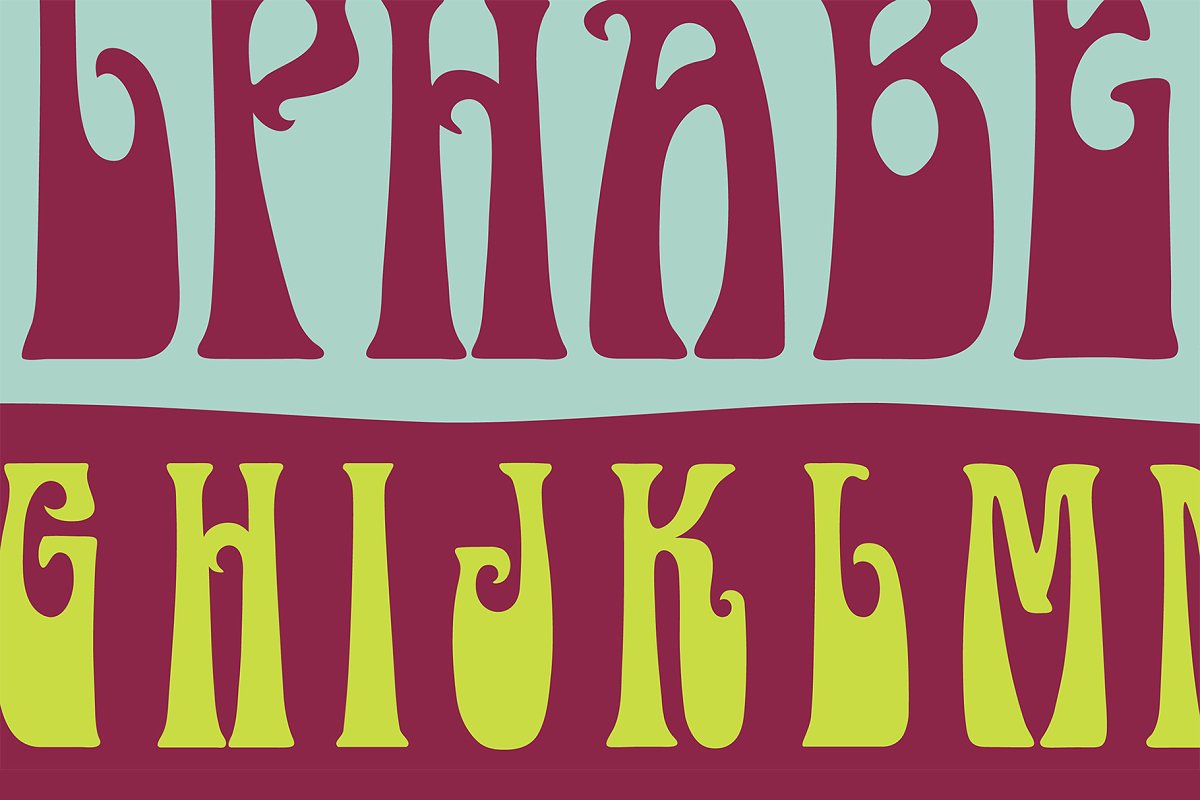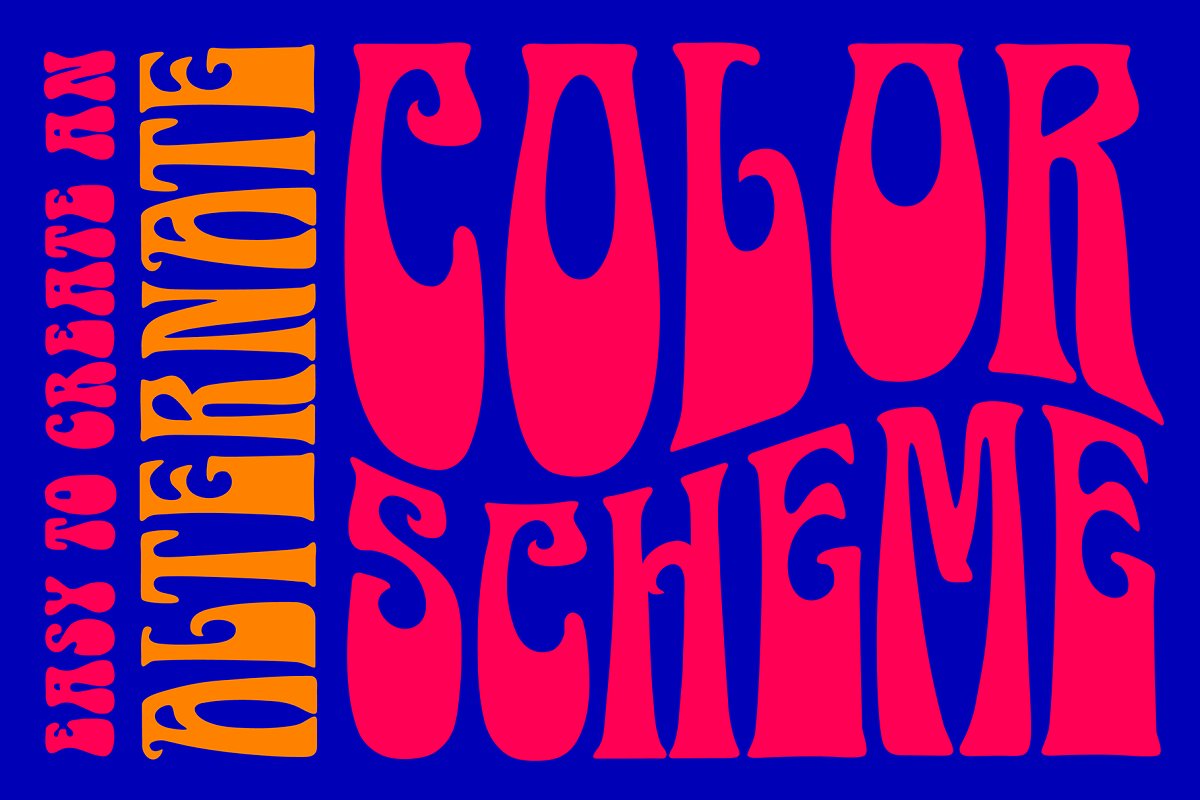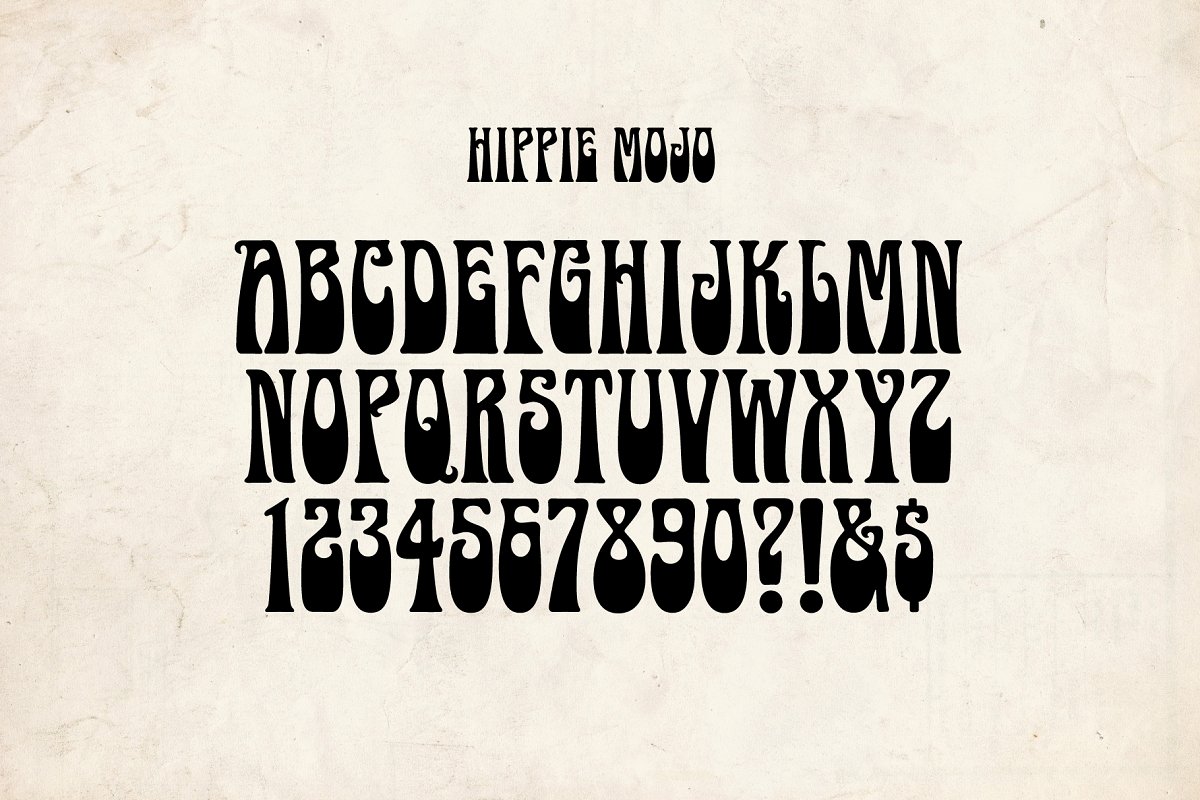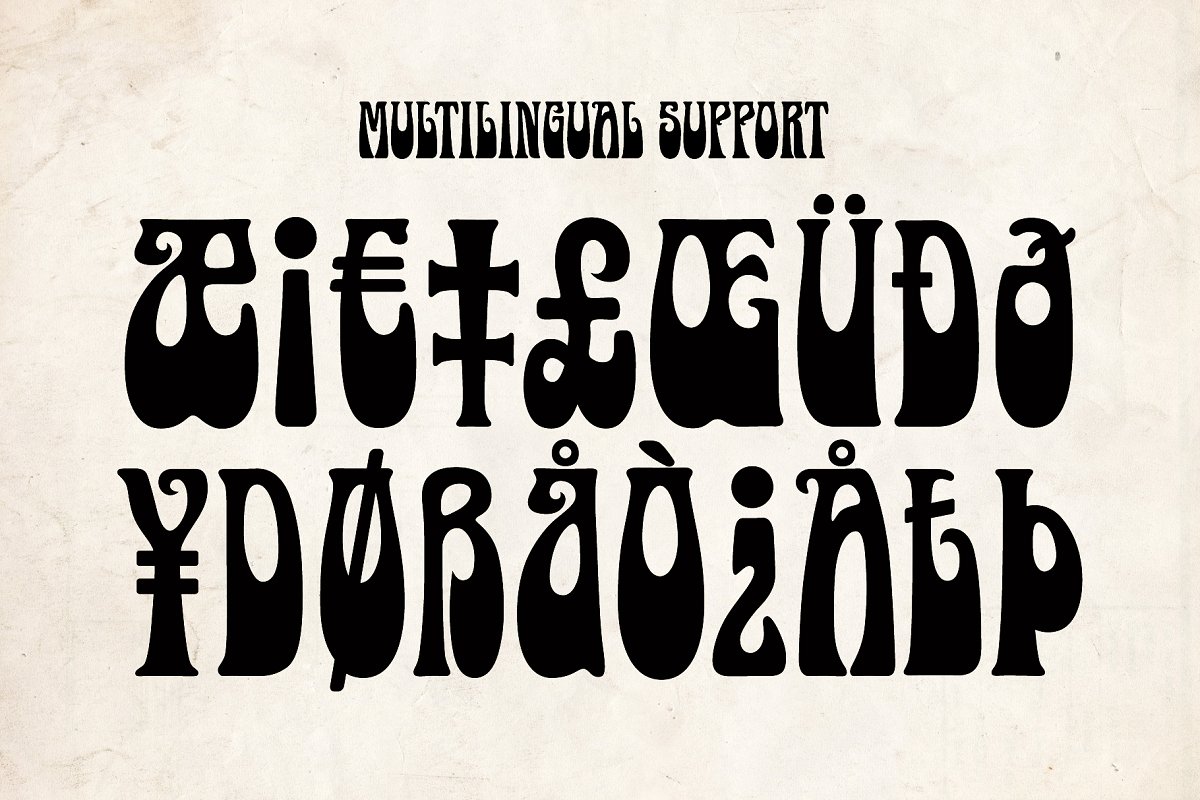
About the Hippie Mojo Font
HIPPIE MOJO PSYCHEDELIC FONTSet the wayback machine for about 1967, Smell the patchouli? Now you can inject just the right dose of swirly-licious mojo into your retro design with this original vintage-styled font, For those who liked my earlier vector art , eps version of this alphabet — but wanted to be able to type text — here’s the , otf and , ttf font version with a full character set and multilingual glyphs, so you can say Groovy baby in many languages
This is predominantly a uni-case font but also features a few alternative characters in the lower case – at the full height of the capitals, Evoke the carefree and tripped-out vibe of the psychedelic era with Hippie Mojo; it’s pure retro fun!,